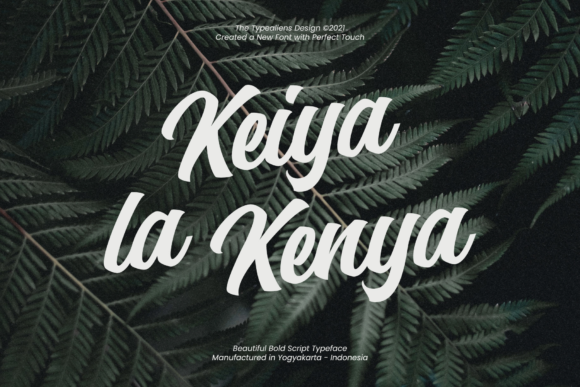
Keiya La Kenya is a gorgeous and bold handwritten font, crafted to give your headlines and logotype projects a retro touch. This font reads as strong, confident, and dynamic and can add tons of nostalgic character to your designs.